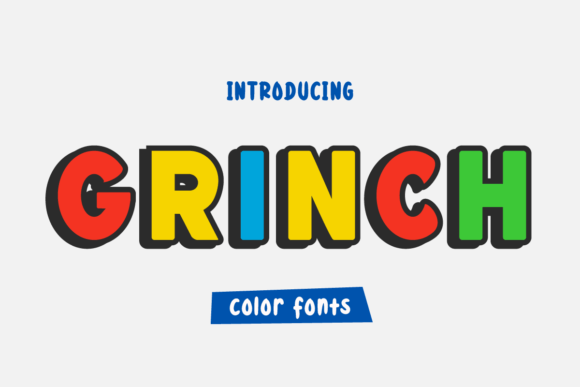
Grinch Font
Grinch is a cute, bold, qurky and fun color font. This font is suitable for craft printing needs such as stickers, mugs, DIY, t-shirts, labels, children’s books, teaching materials, coloring, titles, book covers, Cricut, SVG quotes, sweaters, key chains, initials, picture books, tumblers, wall art , sublimation, decals, apparel, and many other ideas